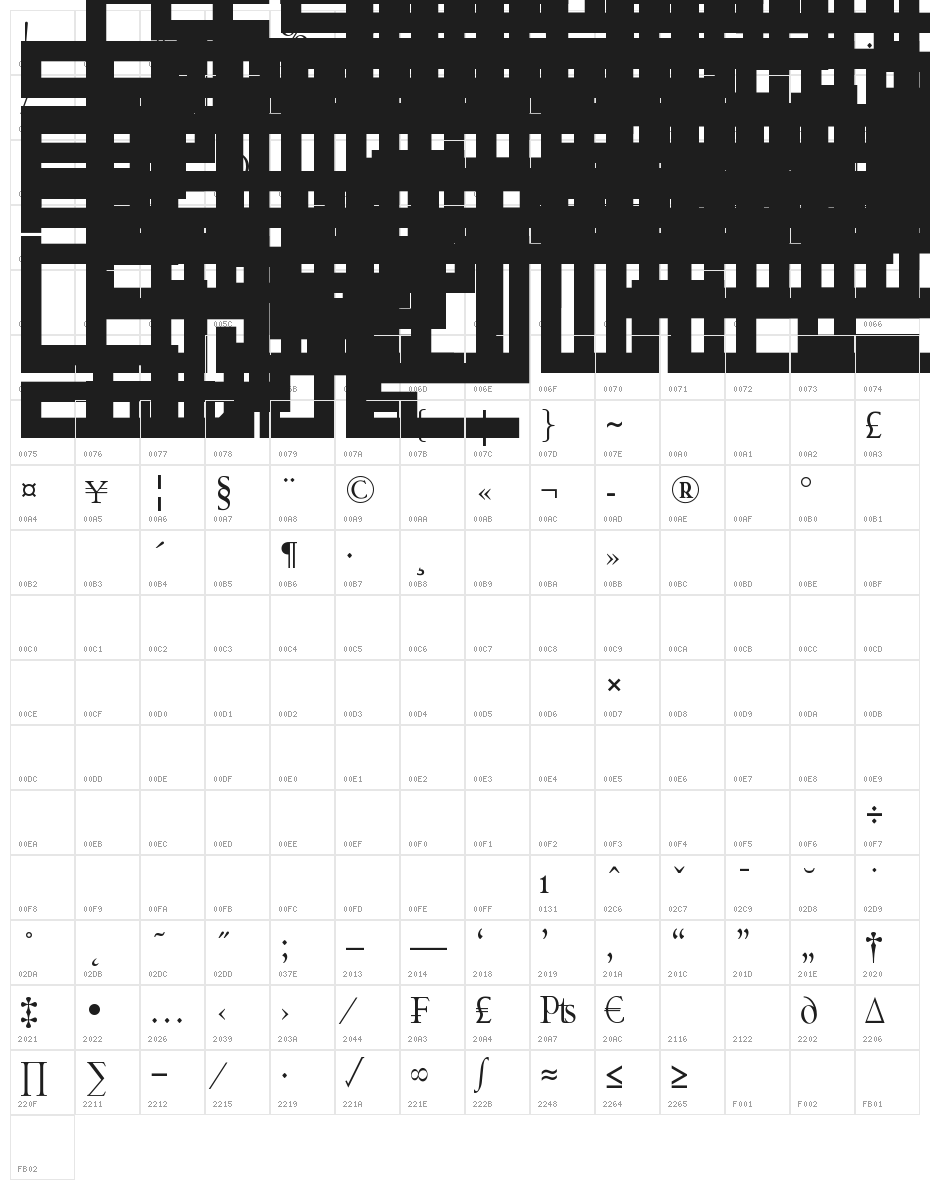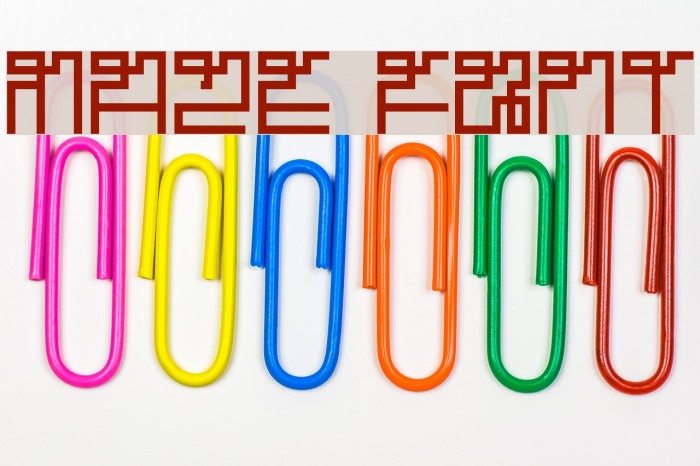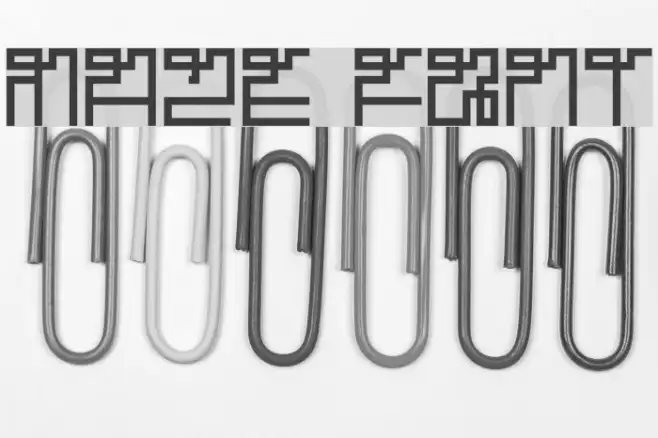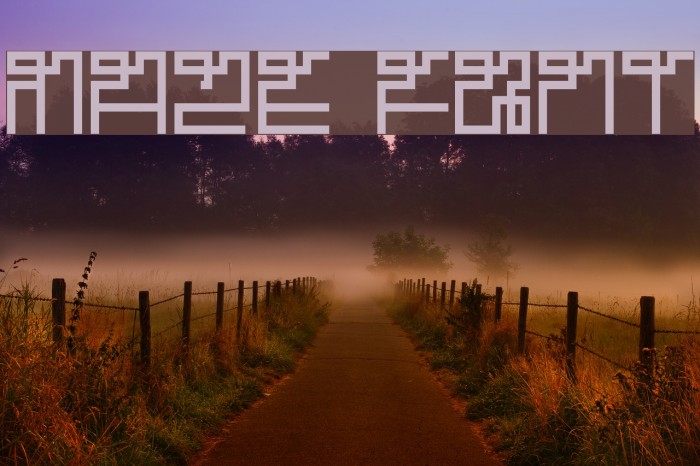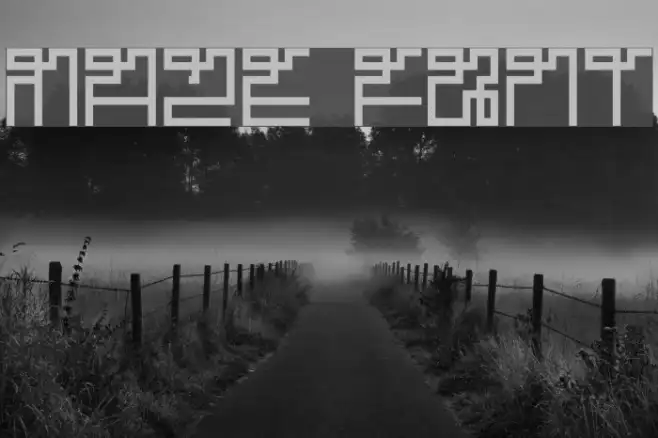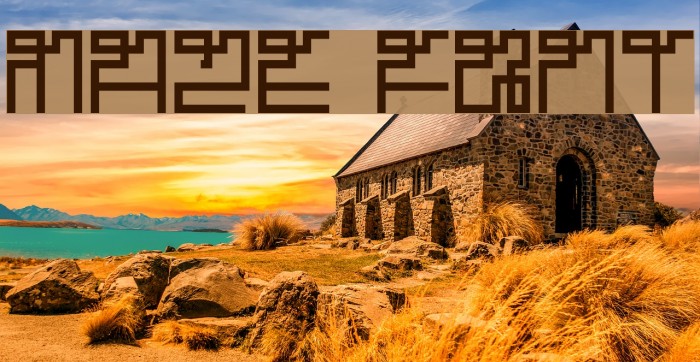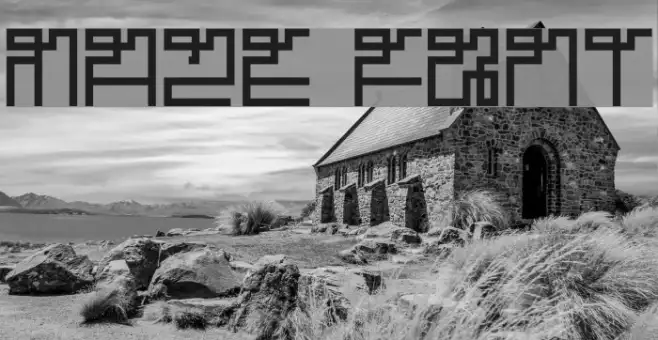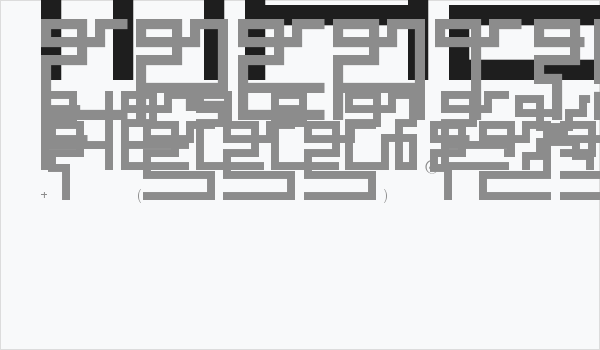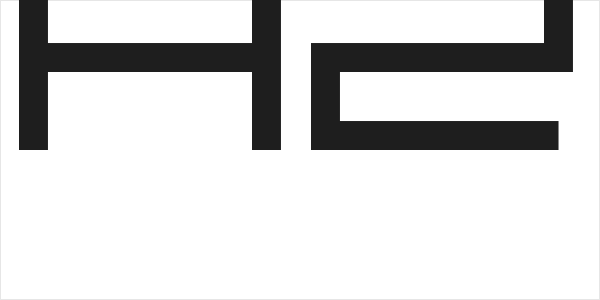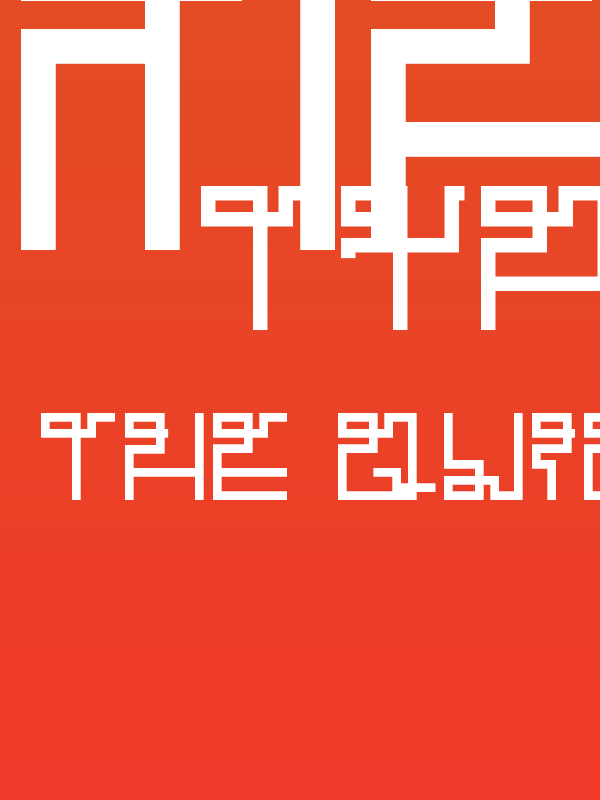
Maze Font
Maze Description
This font features a unique, maze-like design with intricate geometric patterns forming each character. The lines are uniform in thickness, creating a consistent visual rhythm across the alphabet. The uppercase and lowercase letters maintain a similar style, emphasizing the maze-like structure. The numbers and special characters follow the same design principles, ensuring a cohesive look. This font is highly decorative, making it ideal for projects that require a distinctive and artistic touch.
| Use Case | Logos, Posters, Creative Design |
| Proposed Projects | Ideal for artistic projects, unique branding, posters, and creative design work where a standout font is needed. |